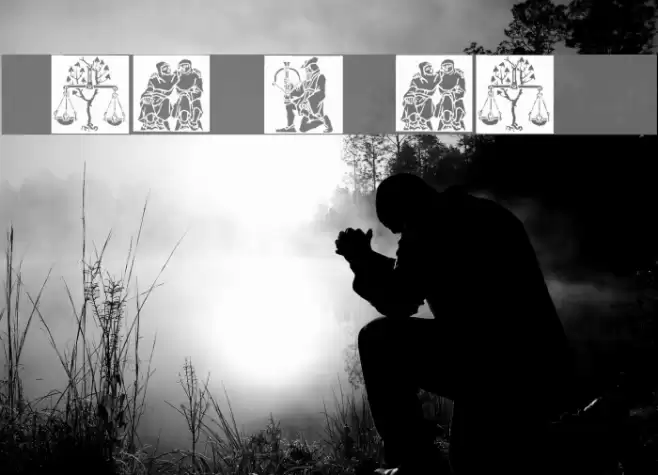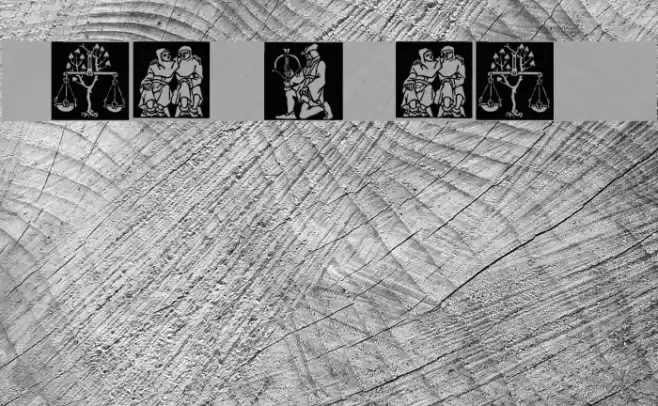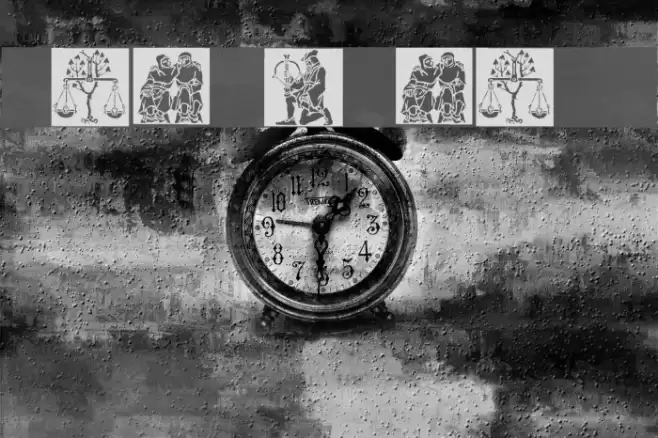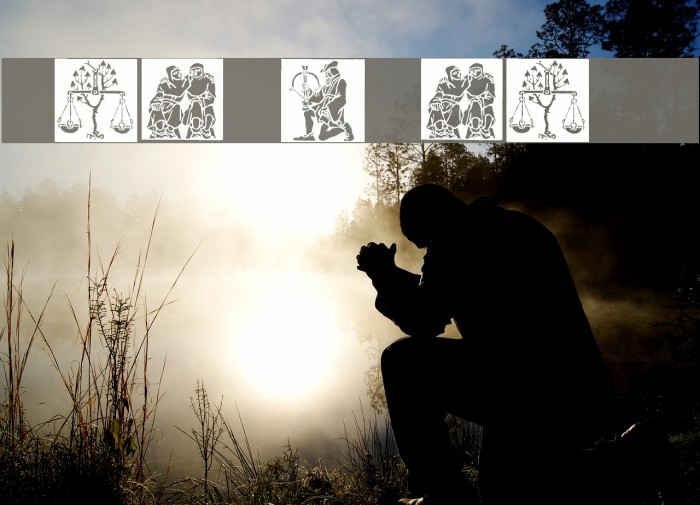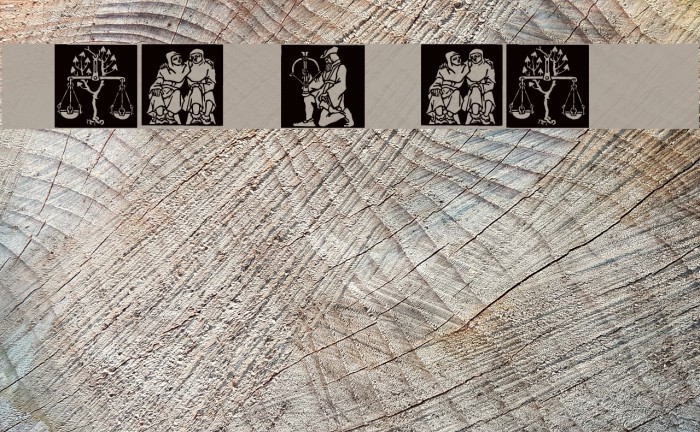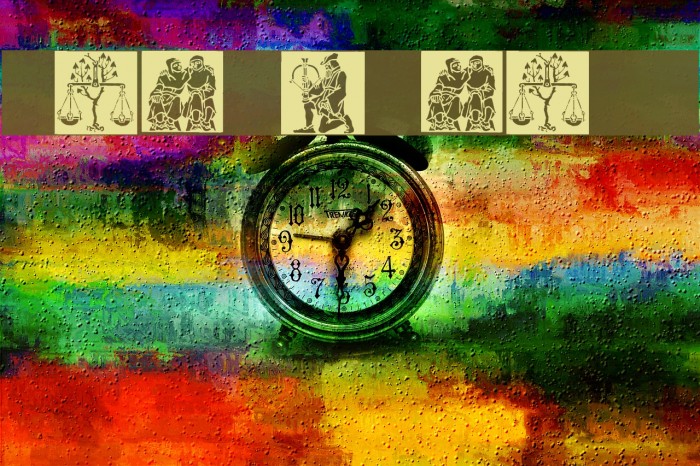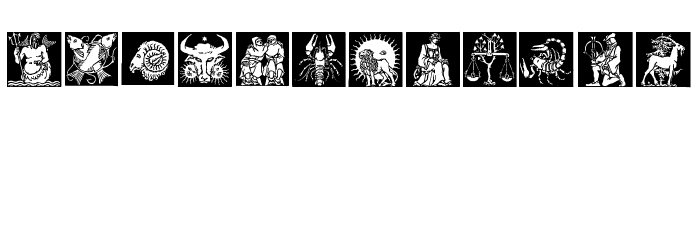
Tierkreis 1 Font
Tierkreis 1 Description
A decorative dingbat set featuring detailed black and white illustrations of zodiac signs, each enclosed in a square with high contrast and intricate linework.
Ornate zodiac symbol illustrations in a decorative dingbat style from Uncategorized fonts.
- Proposed Projects: Astrology-themed posters, greeting cards, calendars, book covers, and decorative dividers.
- Overall Style: Decorative, Ornate, Thematic
- Use Case: Icons, Decorative elements, Themed graphics